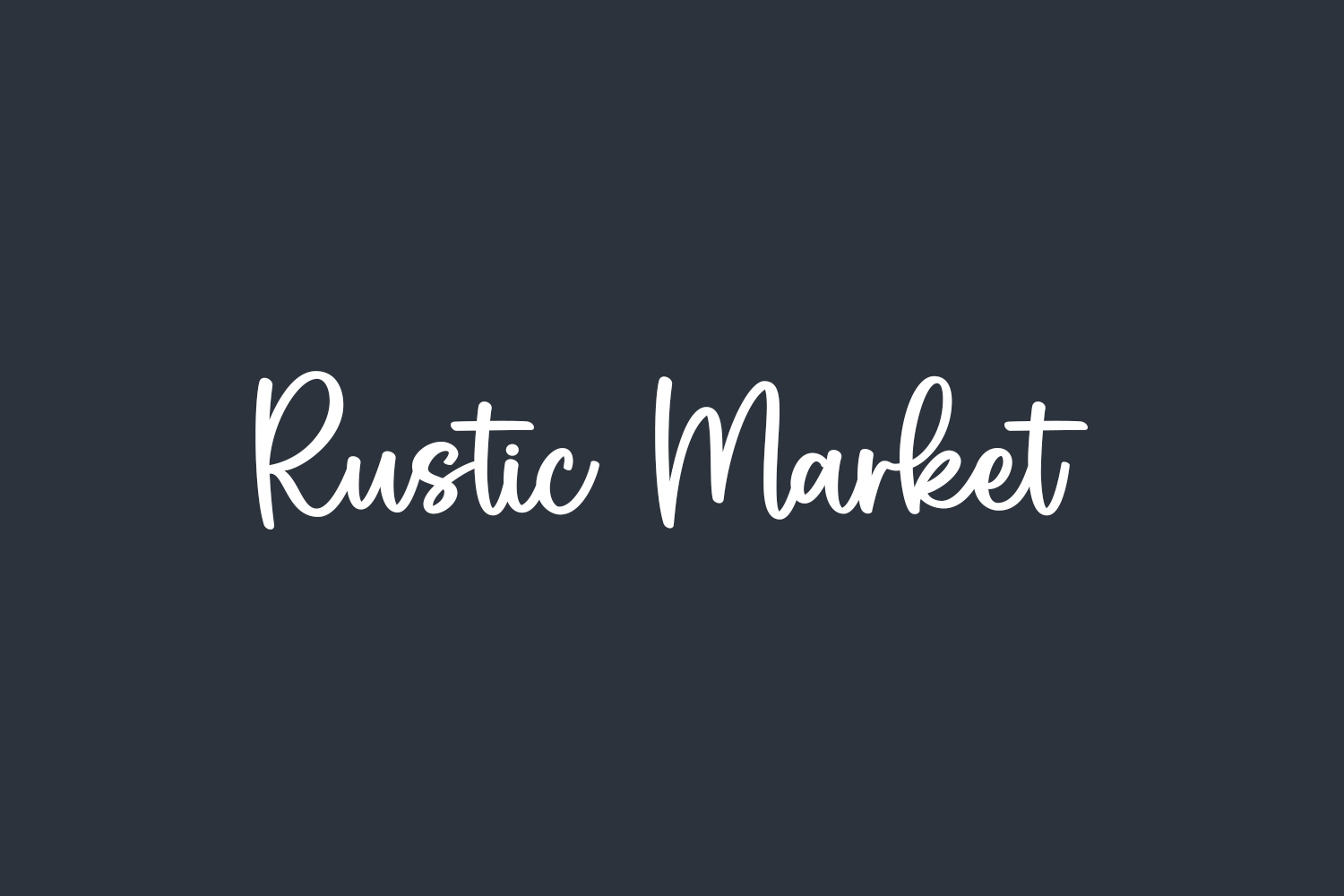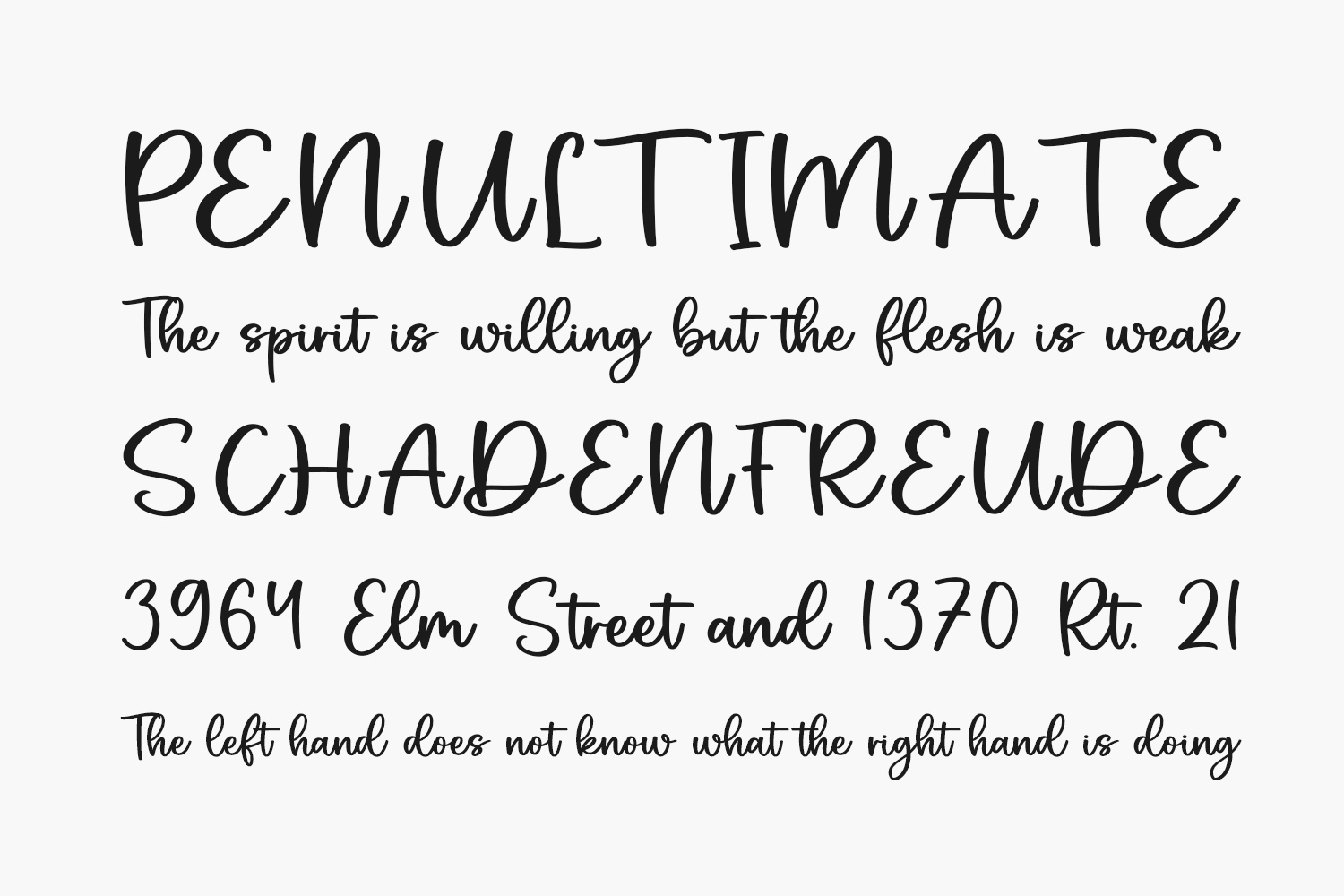
Experience the grace of Rustic Market Free Font, a delicate, elegant, and flowing handwritten font. Boasting beautiful, well-balanced characters, this font seamlessly complements a diverse range of designs, adding a touch of sophistication to your creative projects. Rustic Market Free Font is free for personal use only. Please purchase the full version for commercial use.